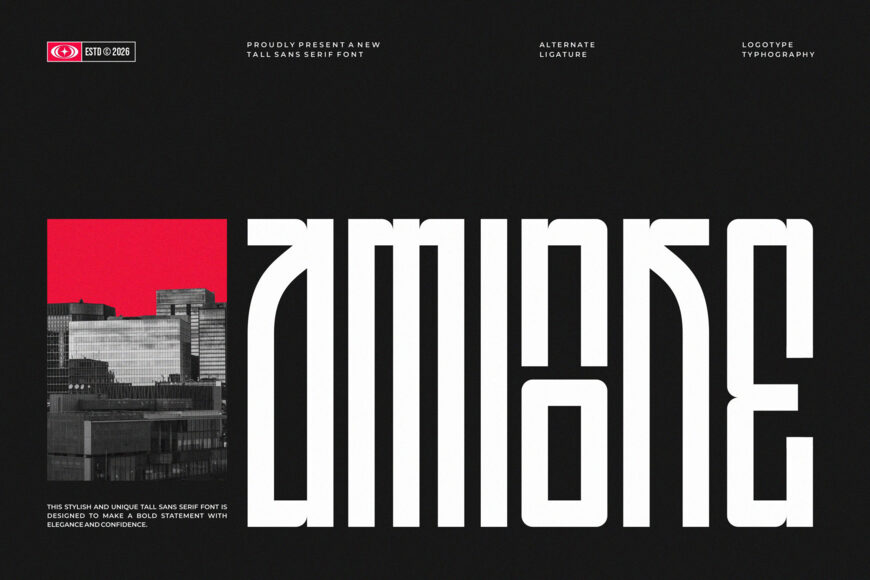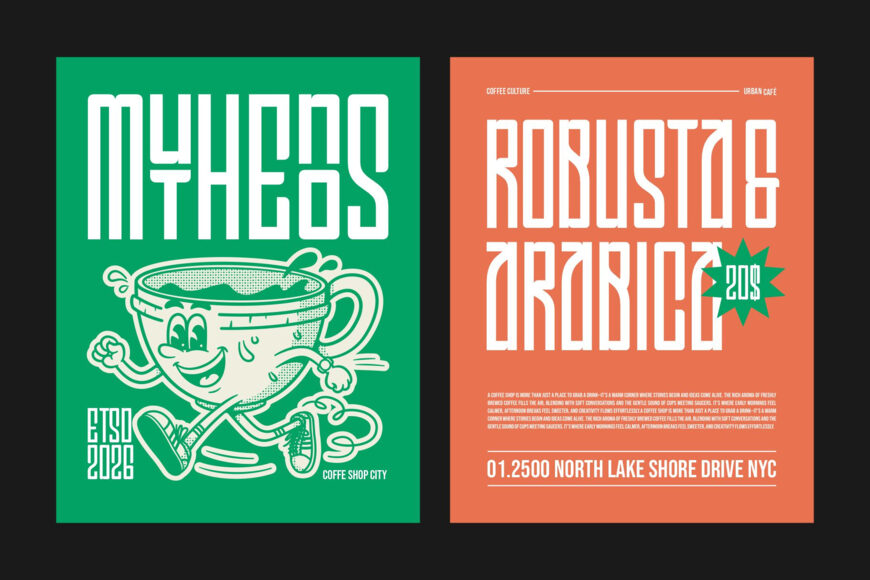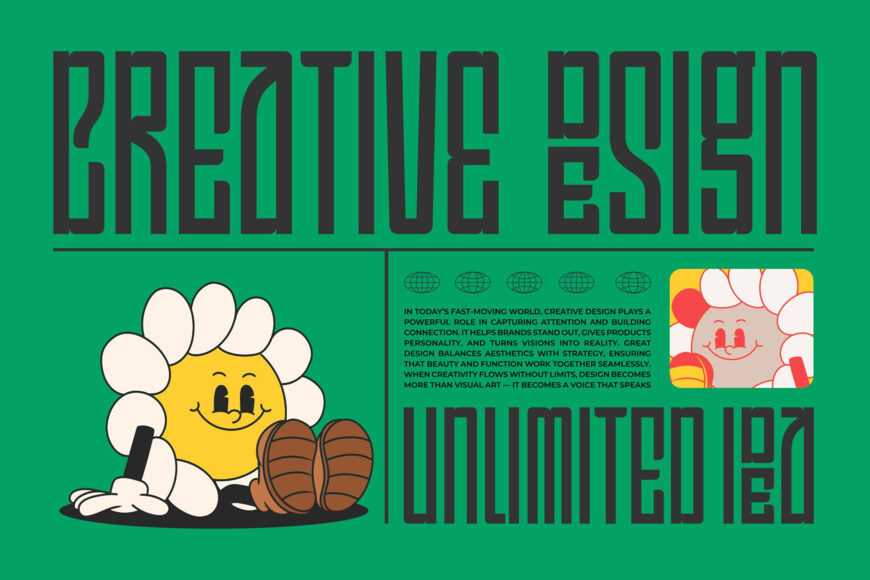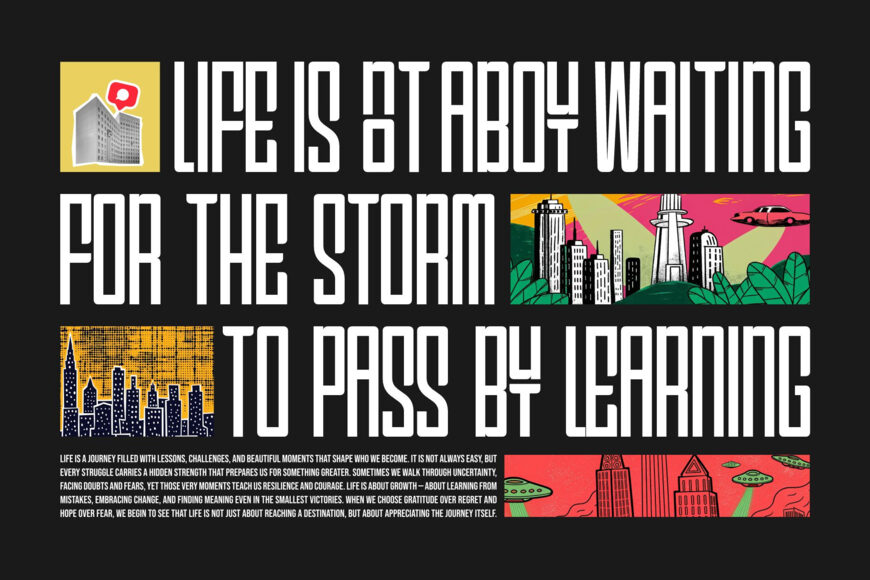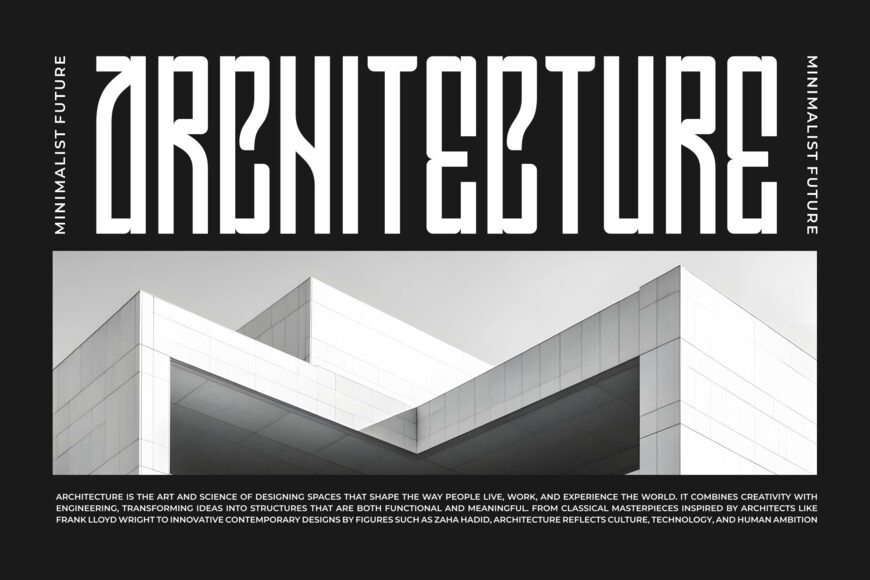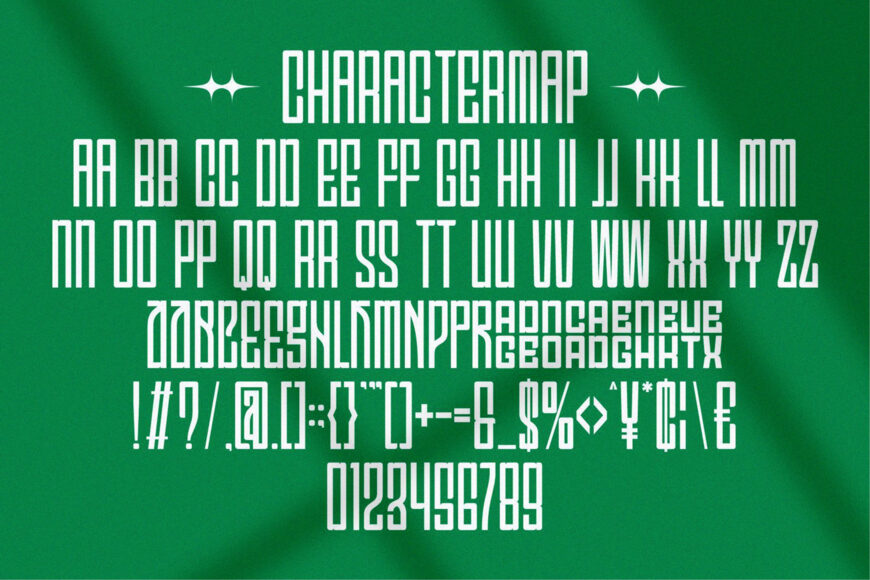
Aminoke Font
Meet Aminoke, a tall sans-serif font with a modern, stylish, and on-trend appearance. Its distinctive character adds a unique touch to any design. Aminoke is ideal for invitation cards, company logos, movie titles, business cards, headlines, book covers, posters, brand identities, and many other creative projects.